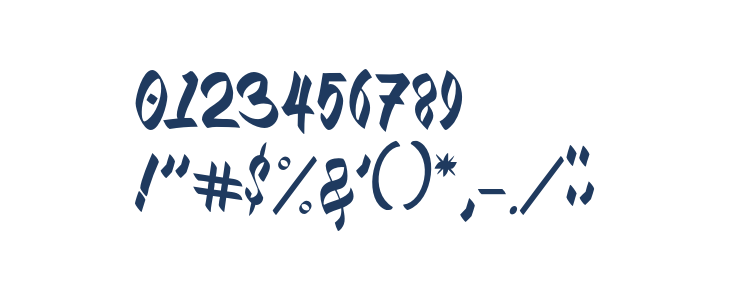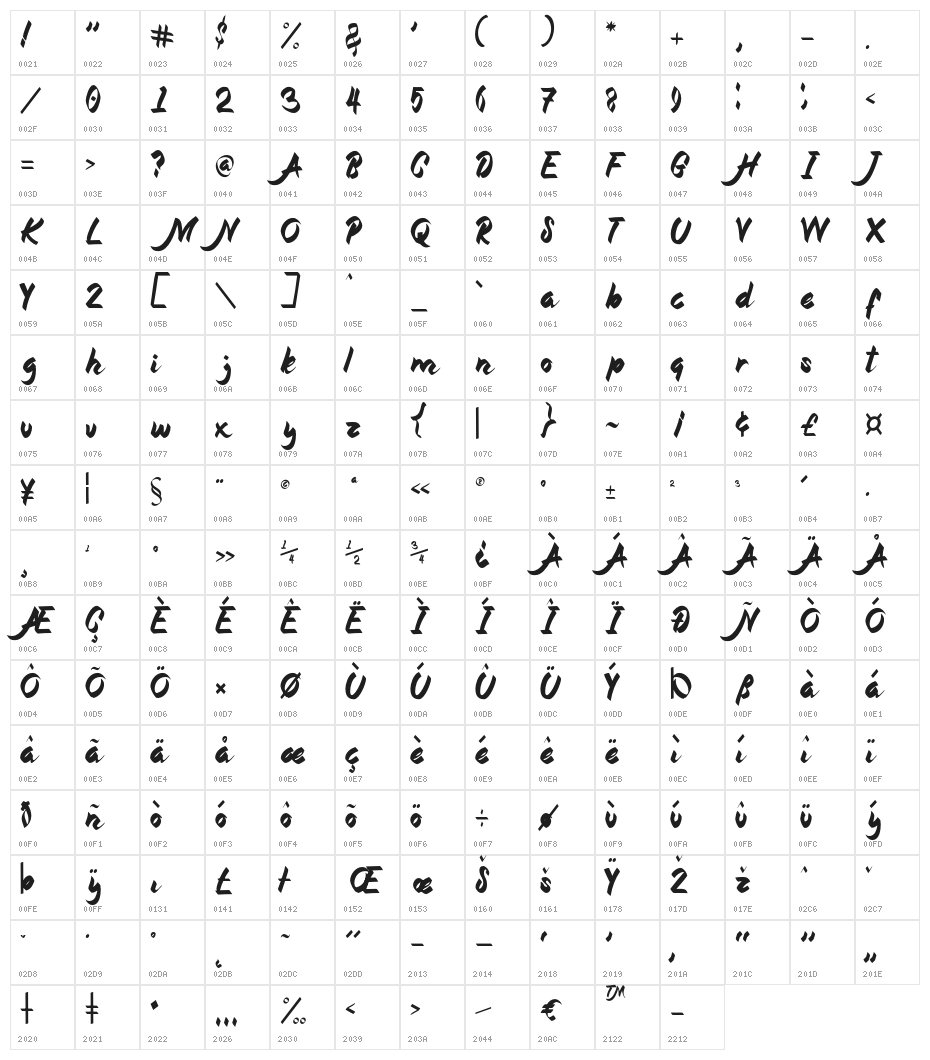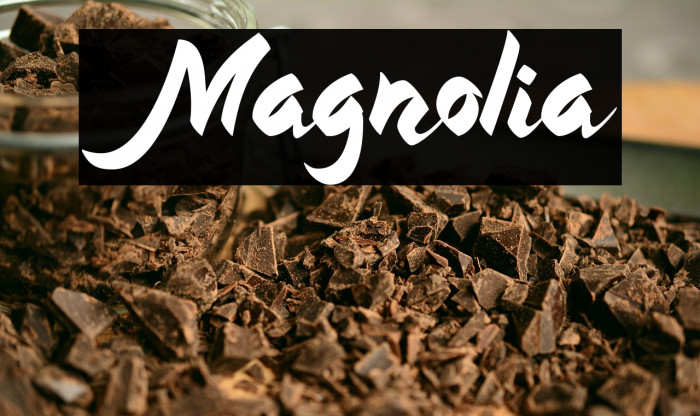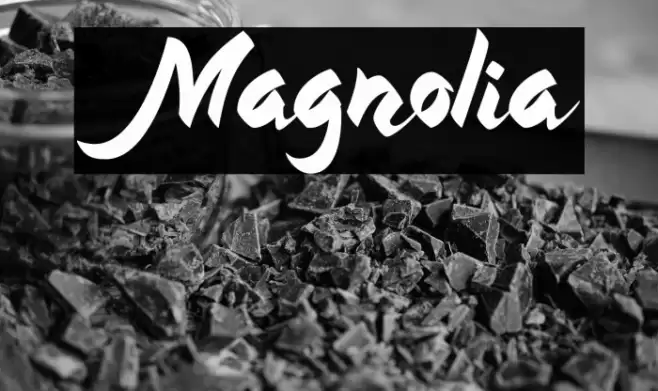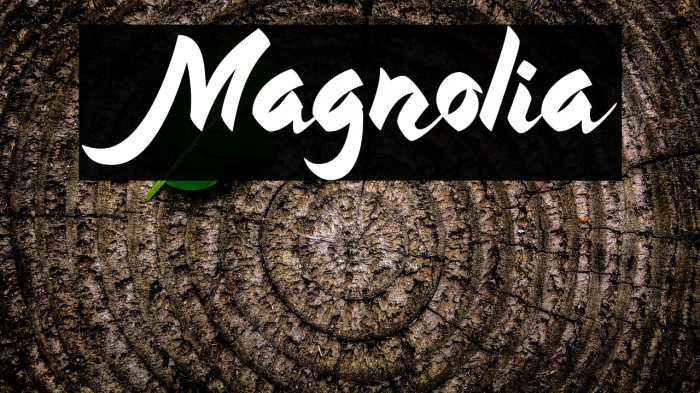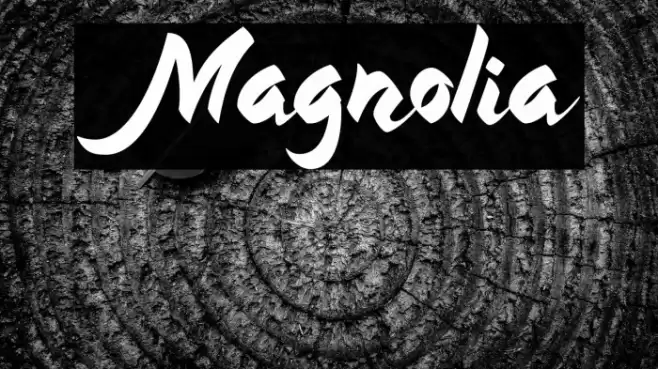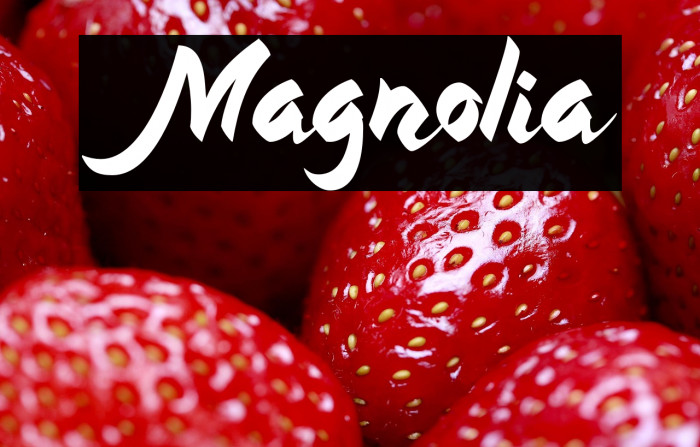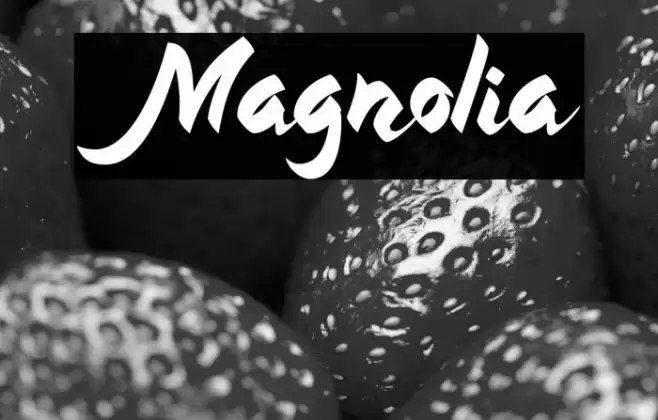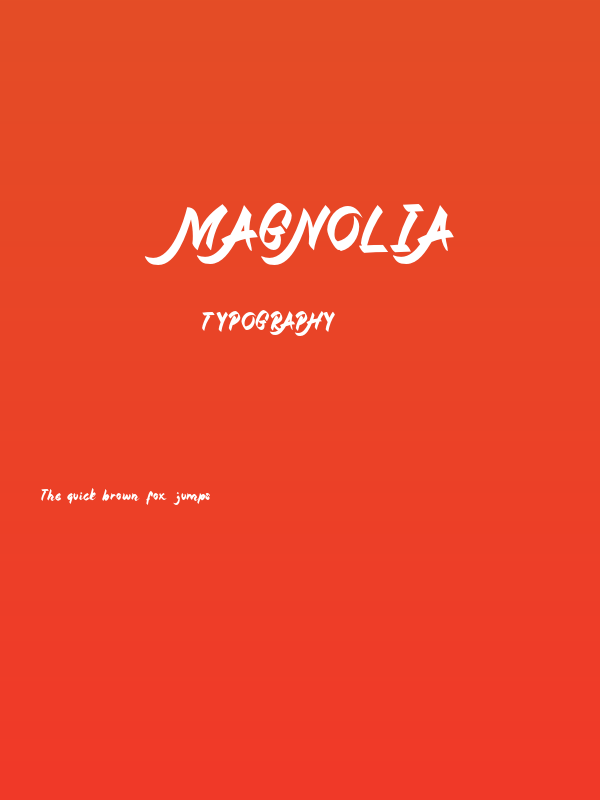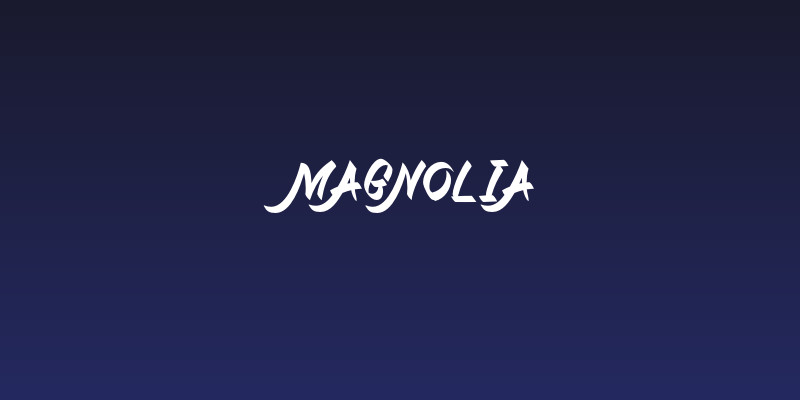
Magnolia Font
Magnolia Description
This font features a bold and expressive script style, characterized by its flowing, cursive letterforms. The uppercase letters are dynamic and slightly slanted, giving a sense of movement and elegance. The lowercase letters maintain a consistent style with smooth curves and a handwritten feel. The numerals are bold and match the overall aesthetic, ensuring readability while maintaining the decorative style. Special characters are creatively designed, adding to the font's unique personality. This font is ideal for projects that require a touch of sophistication and flair.
| Proposed Projects | Ideal for wedding invitations, branding, logo design, and elegant packaging. |